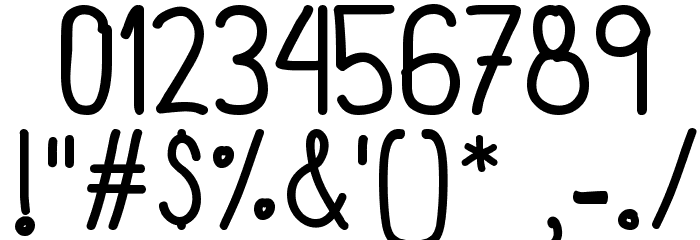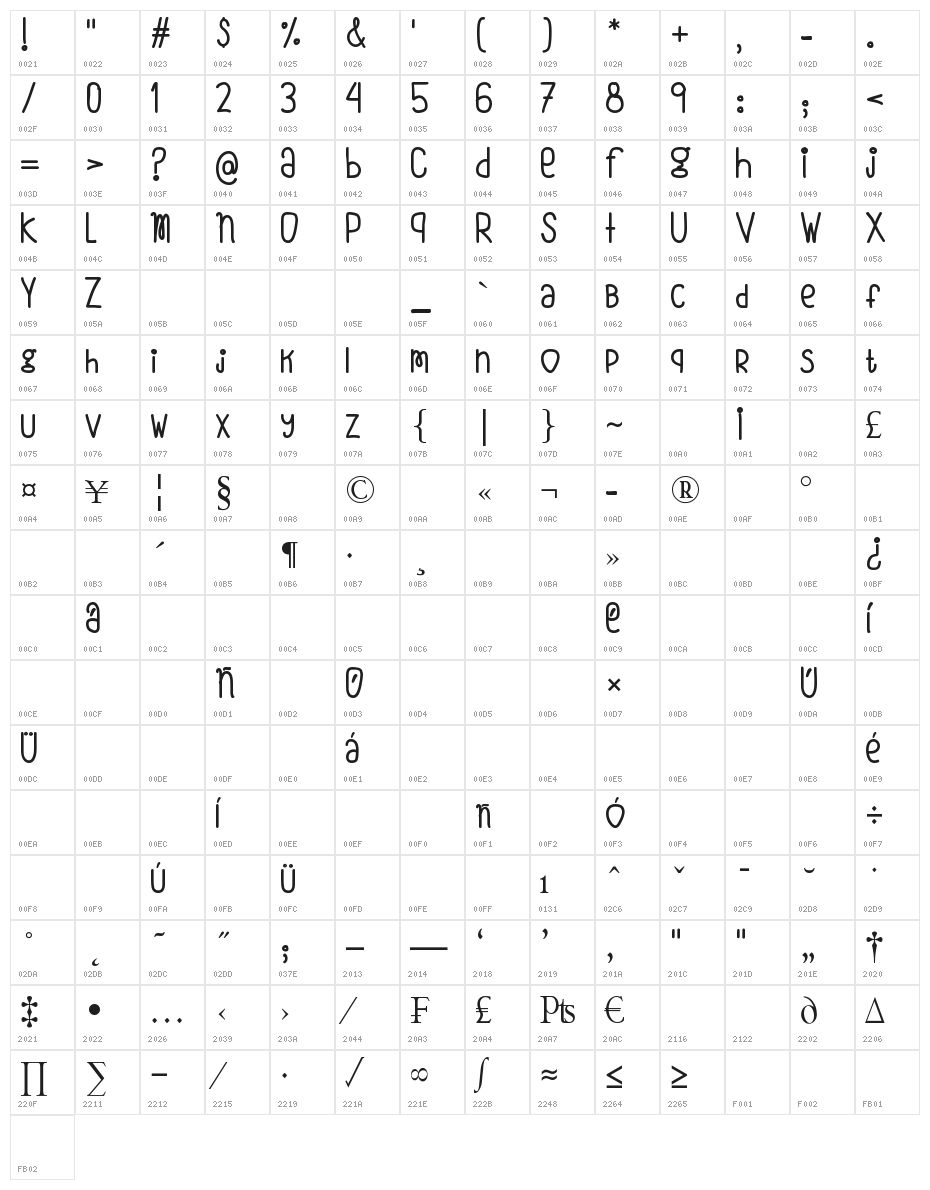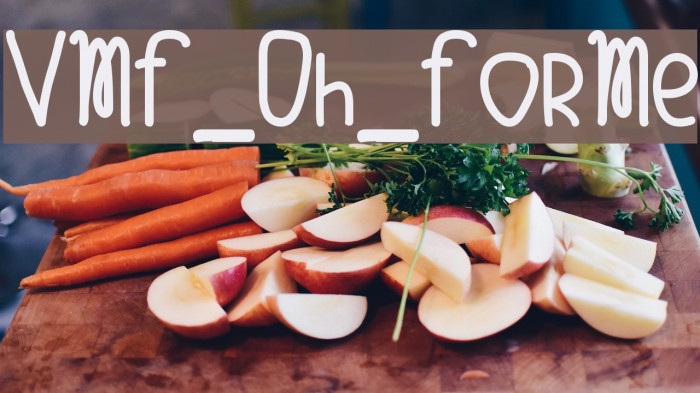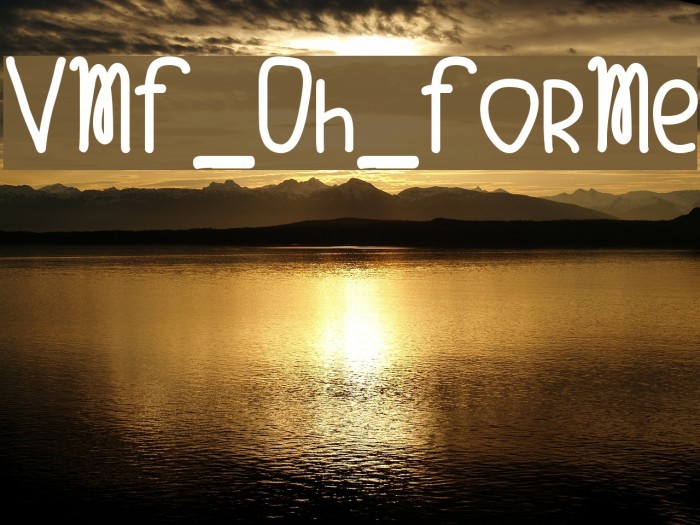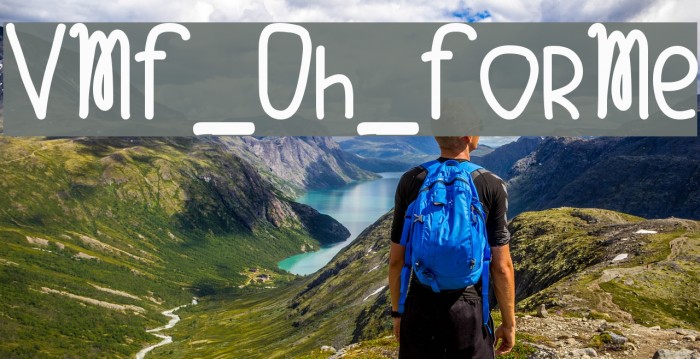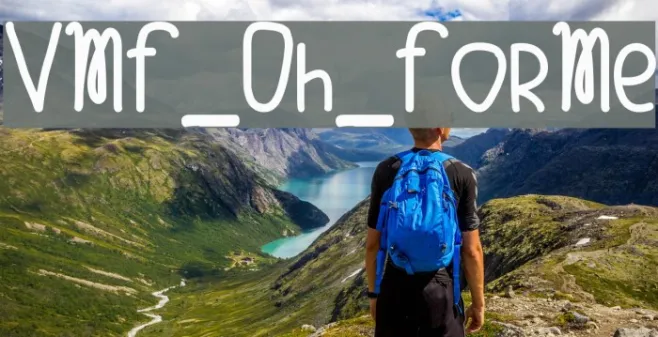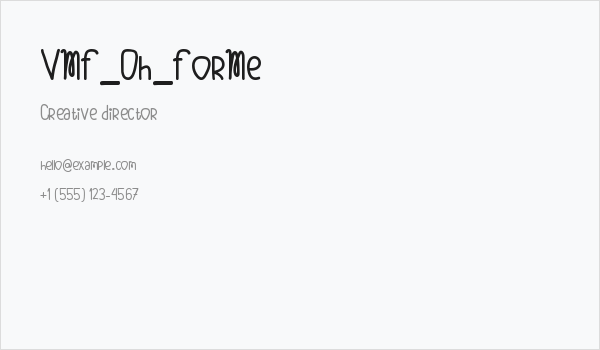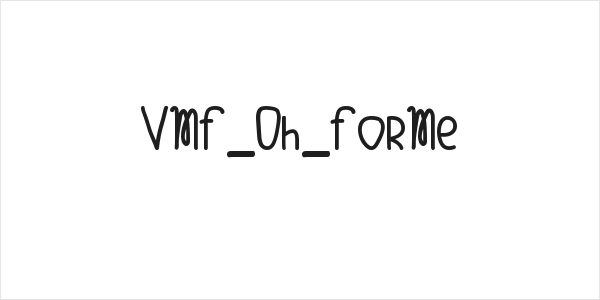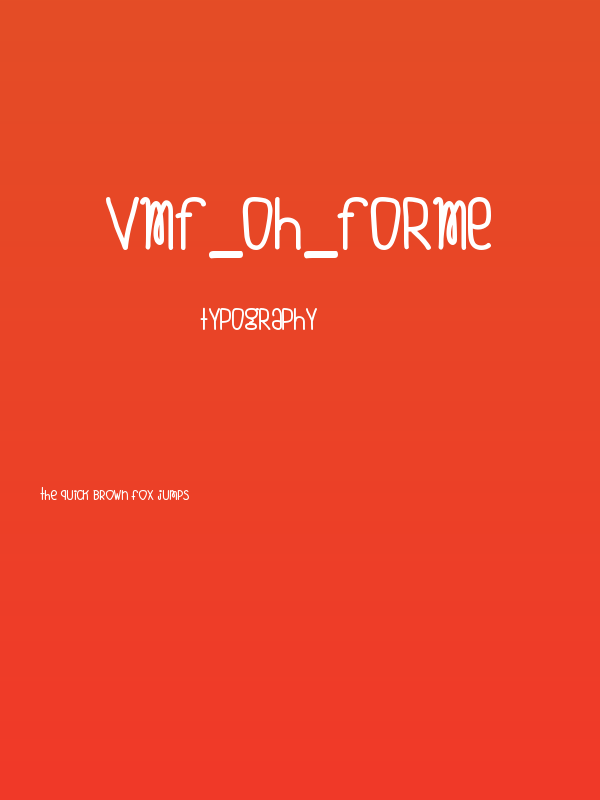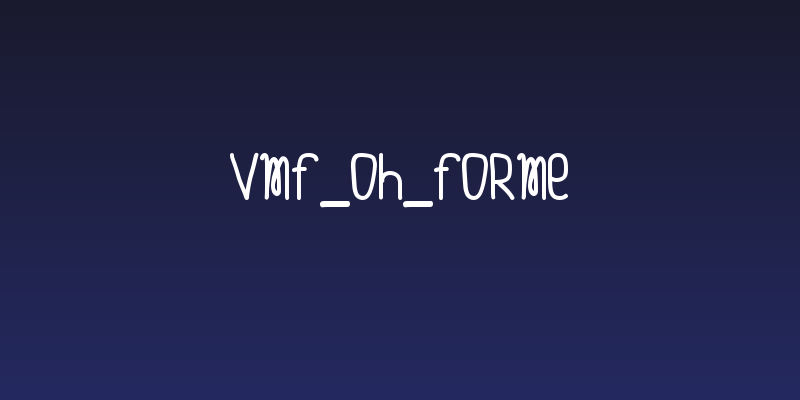
VMF_Oh_ForMe Font
VMF_Oh_ForMe Description
This playful and whimsical font features rounded, bubbly characters that convey a sense of fun and creativity. The letters are consistently bold with a uniform stroke width, giving them a cartoonish appearance. The uppercase and lowercase letters maintain a similar style, with slight variations in height and width. Numbers and special characters are designed to match the playful theme, making them suitable for informal and lighthearted contexts. The overall style is casual and approachable, ideal for projects that aim to capture a youthful and energetic vibe.